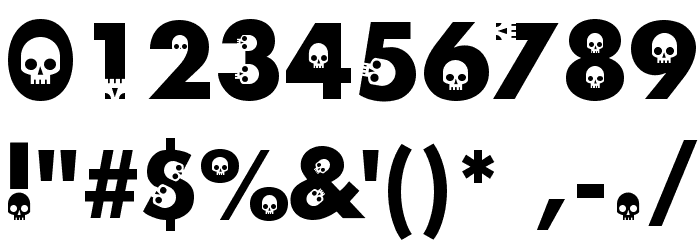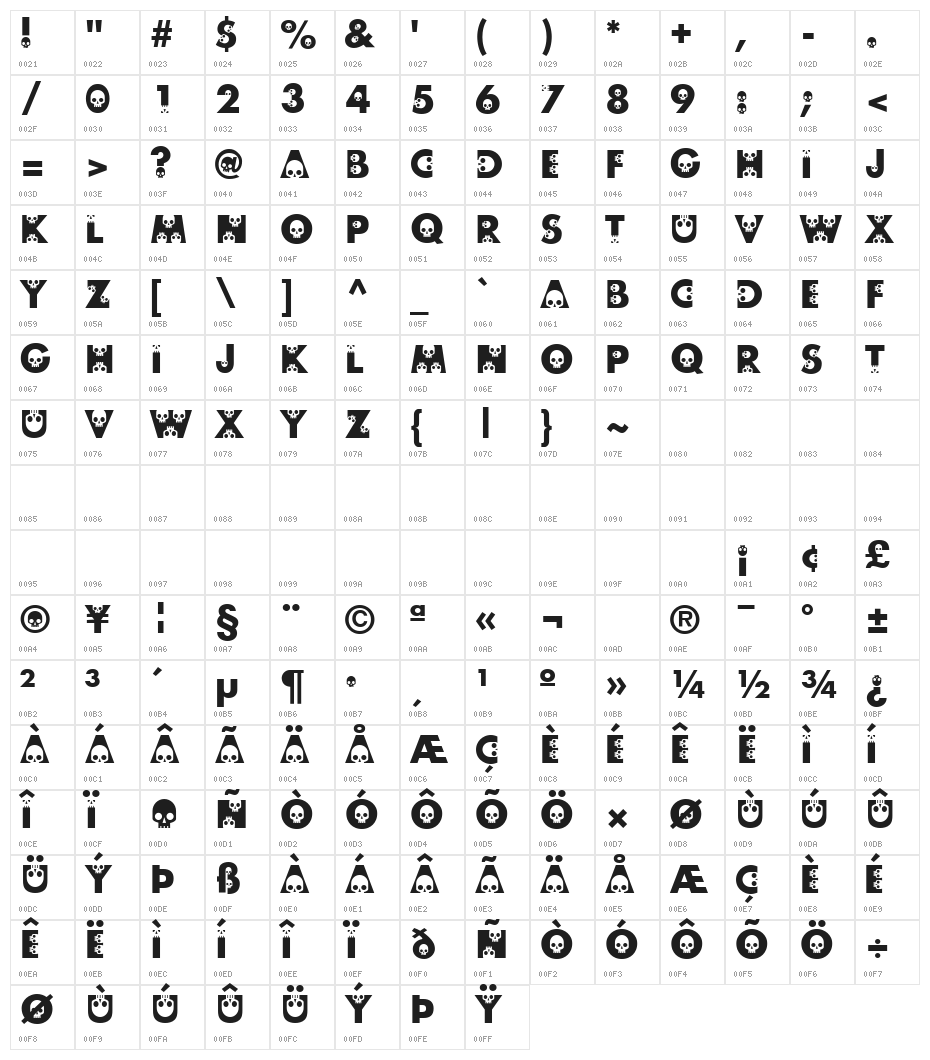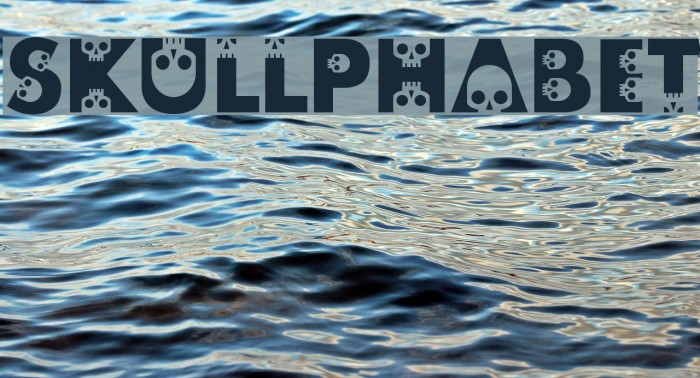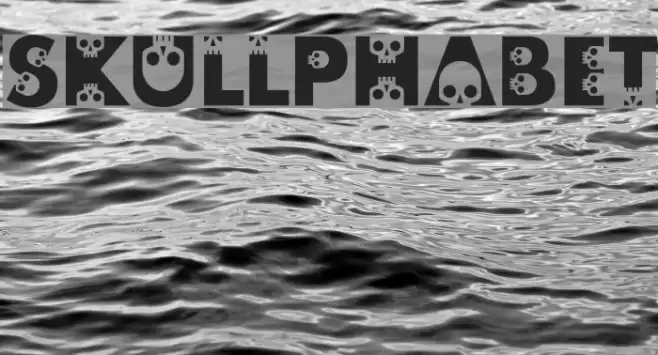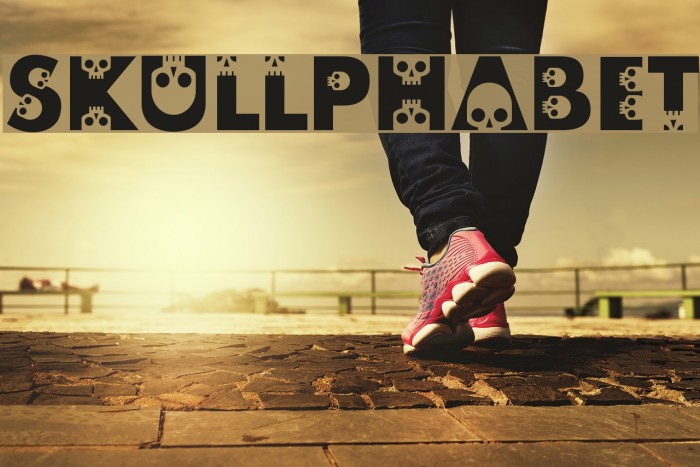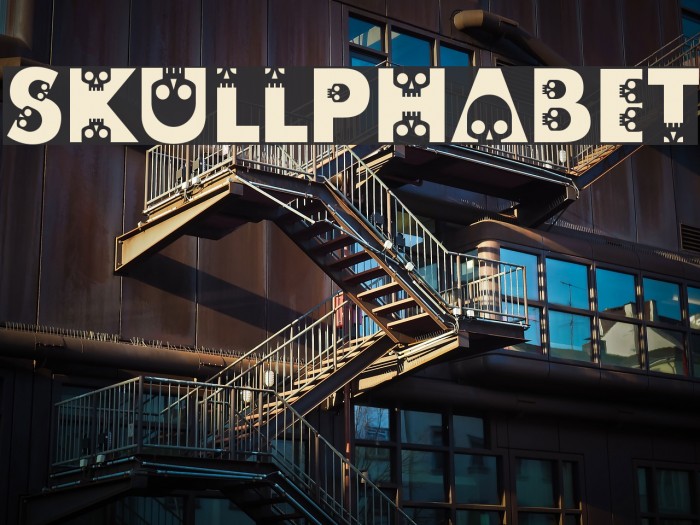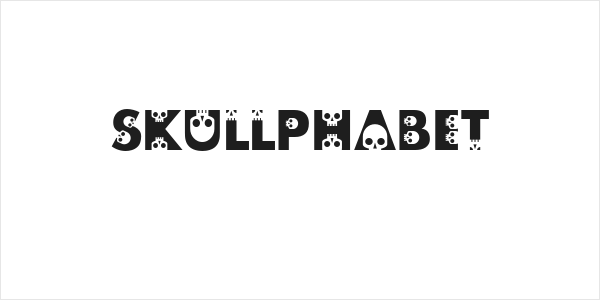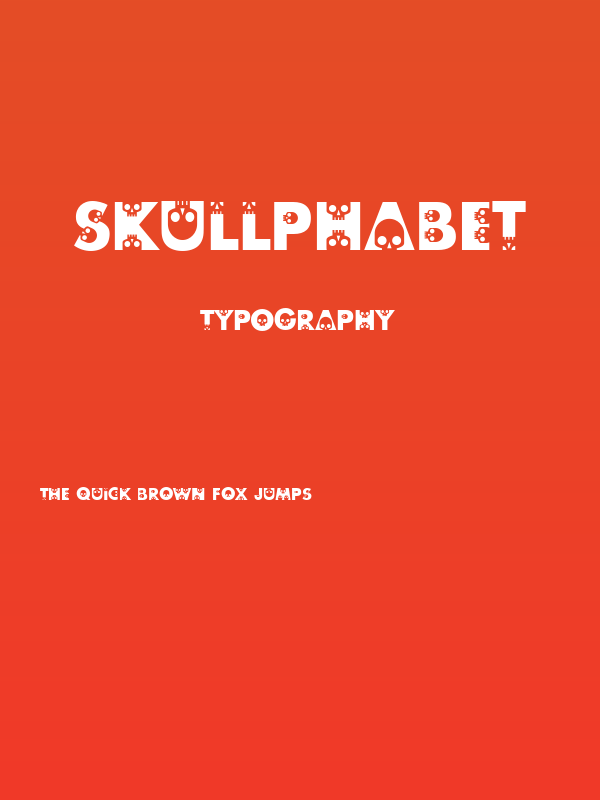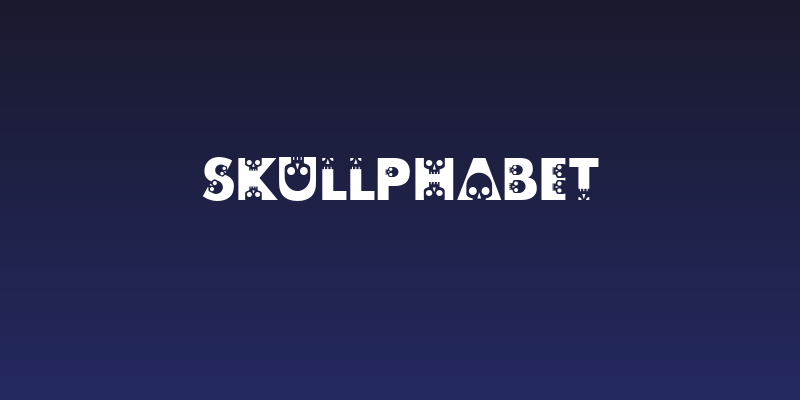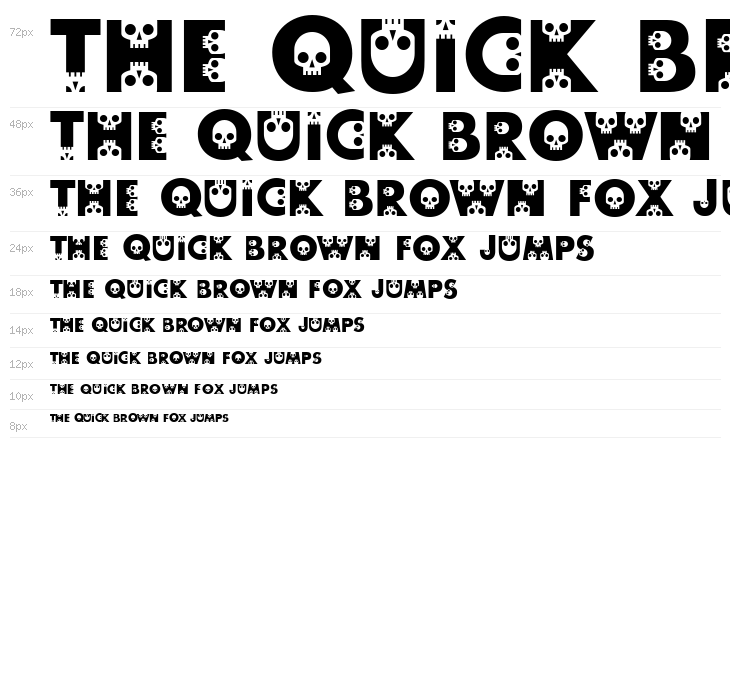
skullphabet Font
skullphabet Description
This font features a bold and playful design, incorporating skull motifs into each character. The letters are uppercase and have a strong, geometric structure, with the skulls cleverly integrated into the negative space or as part of the letterforms themselves. This creates a unique and eye-catching effect that is both decorative and thematic. The font maintains a consistent weight and width throughout, ensuring readability while still delivering a distinct visual impact. The use of skulls gives it a slightly edgy and whimsical feel, making it suitable for themed projects or events.
| Use Case | Headlines, Posters, Themed Events |
| Proposed Projects | Ideal for Halloween-themed designs, party invitations, posters, or any project requiring a fun and spooky aesthetic. |